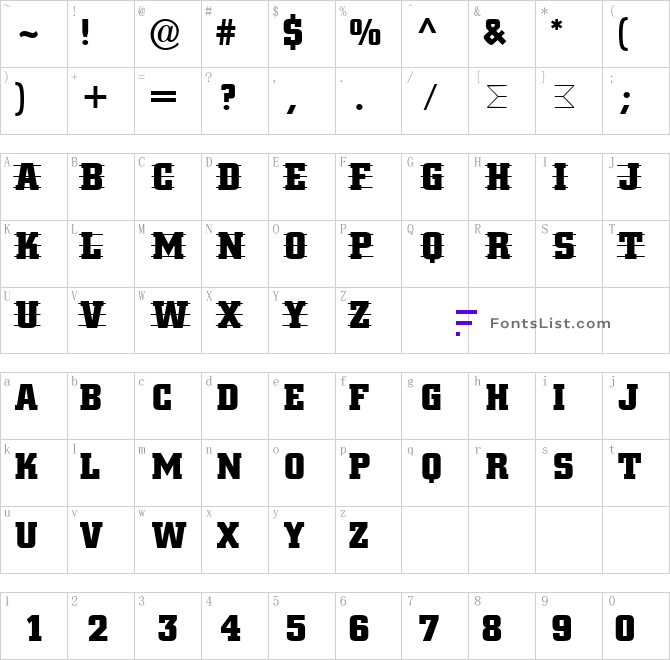
a_CityNovaTtD3StrCmb.ttf is a very beautiful artistic font, a_CityNovaTtD3StrCmb.ttf is widely used in the design and printing of various books and pictures,a_CityNovaTtD3StrCmb.ttf has a strong visual impact,a_CityNovaTtD3StrCmb.ttf is a commonly used font in newspapers, magazines and books, and is used in posters, e-commerce Poster design, store design, logo design, font design and other fields.a_CityNovaTtD3StrCmb.